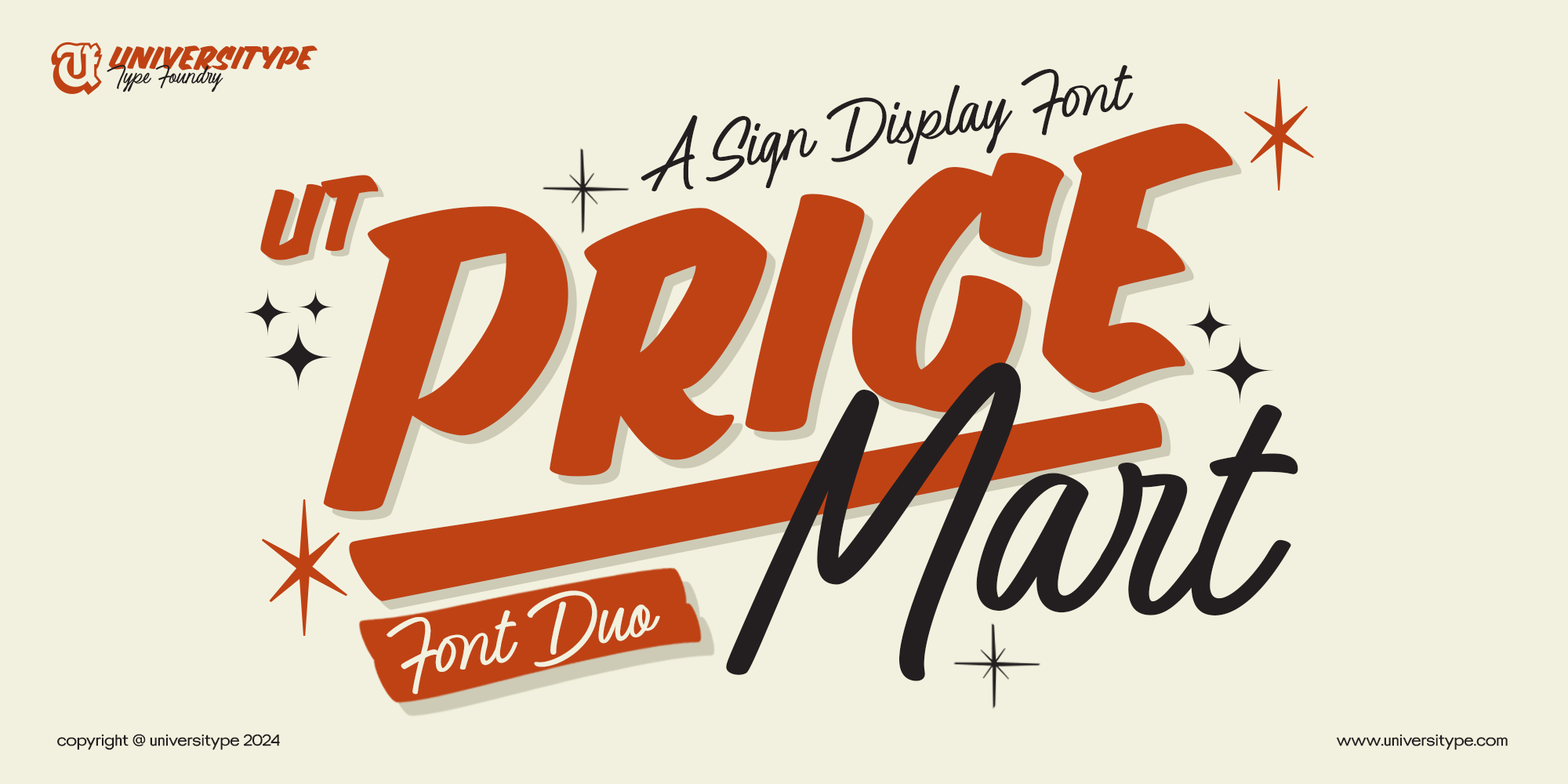
UT Pricemart Font Duo is a distinctive font pair designed by Universitype, combining two unique styles to add a retro flair to your design projects. This duo features a bold, uppercase sans-serif font alongside a whimsical, flowing script, offering versatility for various creative endeavors.
Design: The combination of a sturdy sans-serif with a playful script provides a dynamic aesthetic, suitable for logos, signage, and promotional materials.
Usage: Ideal for branding, advertisements, product packaging, and any project requiring a touch of vintage sophistication.